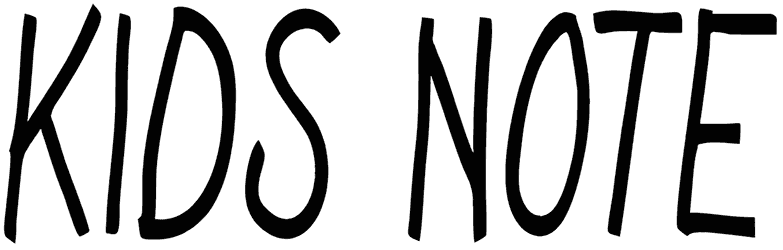
Kids Note Font
Kids Note is right for you if the space you want your designs to bring is towards childish and playful aesthetics. This script font imitates the handwriting of teachers who want to teach children to write letters.
For this reason, it has an inherent order that works very well wherever there is a need to focus on content. A crisp mix of formal and casual, this kids’ font can become a star for designers looking for a versatile option.